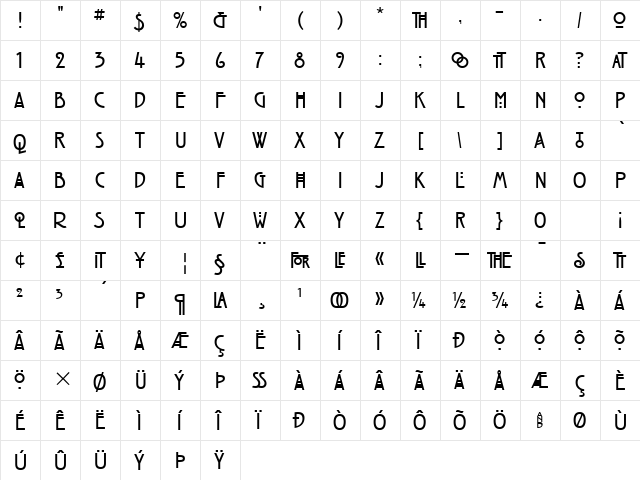
RennieMackintoshITC TT Bold
Design Context for RennieMackintoshITC TT Typeface
RennieMackintoshITC TT is a composed and adaptable typeface that performs quietly and consistently across a wide range of design contexts. The heavy weight commands attention and anchors typographic hierarchies.